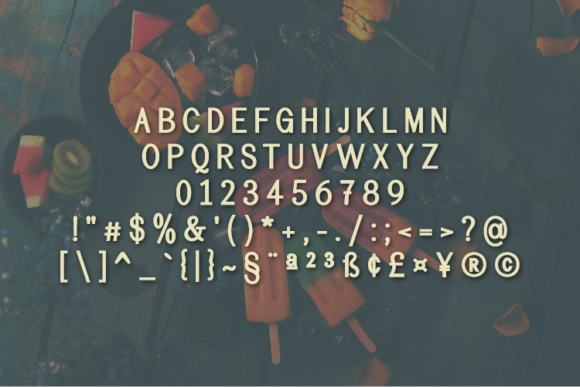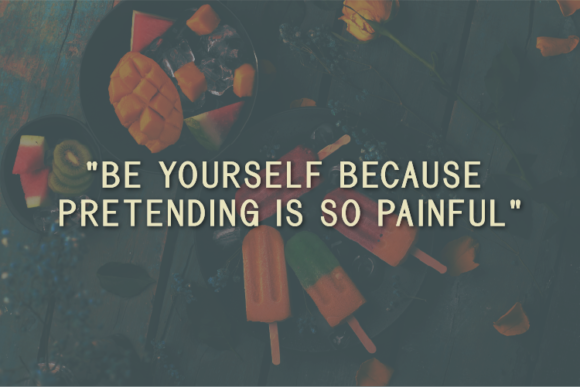
Fruitheme Font: Elevate Your Designs with a Minimal and Neat Sans Serif Font
Are you tired of using generic fonts that fail to make your designs stand out? Look no further than Fruitheme Font, a minimal and neat sans serif font that’s perfect for a wide range of projects. With its clean and simple design, Fruitheme Font is an excellent choice for designers and crafters looking to add a touch of elegance and sophistication to their work.
The Characteristics of Fruitheme Font
Fruitheme Font is a sans serif font, which means it doesn’t have the small lines or flourishes at the end of the letters. This gives it a clean and minimalist look that’s perfect for designs where you want the text to be the focus. The font is also highly legible, making it easy to read even at small sizes.
One of the standout features of Fruitheme Font is its versatility. It’s a font that can easily be matched to an incredibly large set of projects, from modern and edgy designs to more traditional and elegant ones. Whether you’re working on a logo, a brochure, or a website, Fruitheme Font is a great choice.
Why Choose Fruitheme Font?
So why should you choose Fruitheme Font for your next project? Here are just a few reasons:
- Unique and eye-catching: Fruitheme Font has a unique and eye-catching design that’s sure to make your designs stand out from the crowd.
- Highly legible: The font is highly legible, even at small sizes, making it perfect for designs where you need to include a lot of text.
- Versatile: Fruitheme Font can be used for a wide range of projects, from modern and edgy designs to more traditional and elegant ones.
How to Use Fruitheme Font in Your Designs
Using Fruitheme Font in your designs is easy. Here are a few tips to get you started:
- Pair it with other fonts: Fruitheme Font pairs well with other sans serif fonts, as well as serif fonts. Experiment with different combinations to find the one that works best for your design.
- Use it for headings and body text: Fruitheme Font is perfect for both headings and body text. Use it to create a cohesive look throughout your design.
- Experiment with different colors: Fruitheme Font looks great in a variety of colors. Experiment with different colors to find the one that works best for your design.
If you’re a designer or crafter looking to use Fruitheme Font in your work, here are a few tips to keep in mind:
- Keep it simple: Fruitheme Font is a simple and minimalist font. Keep your design simple and clean to let the font shine.
- Use it for branding: Fruitheme Font is perfect for branding projects, such as logos and business cards.
- Experiment with different textures: Fruitheme Font looks great with different textures. Experiment with different textures to add depth and interest to your design.
Fruitheme Font is a minimal and neat sans serif font that’s perfect for a wide range of projects. With its clean and simple design, it’s an excellent choice for designers and crafters looking to add a touch of elegance and sophistication to their work. Whether you’re working on a logo, a brochure, or a website, Fruitheme Font is a great choice. So why not give it a try and see how it can elevate your designs?